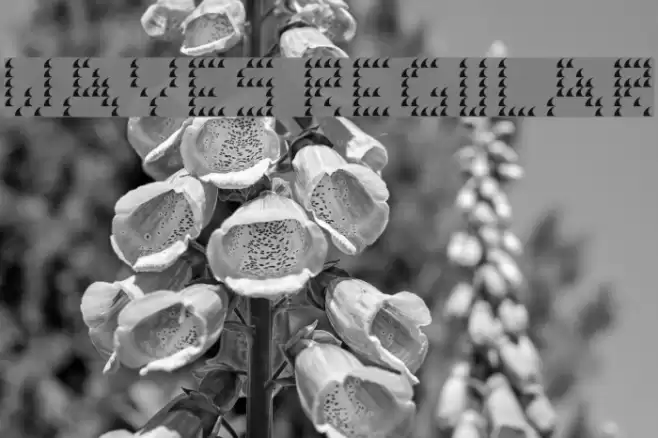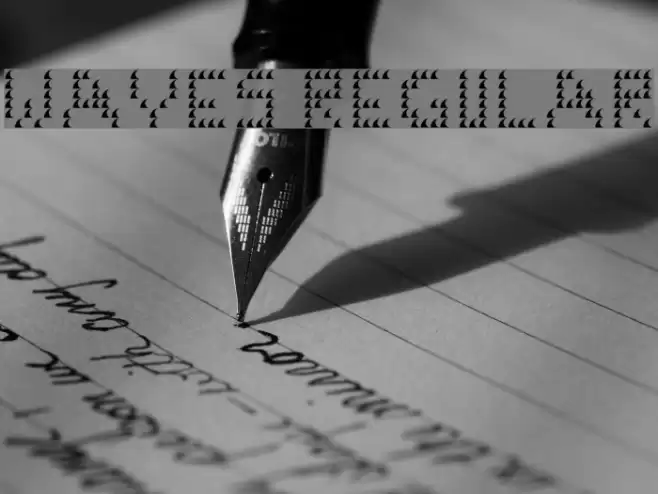
Waves Regular Font
Waves Regular Description
This font features a distinctive design characterized by a series of repeating triangular shapes that create a wave-like pattern within each letter. The geometric style gives it a modern and edgy appearance, making it stand out in any design. The uppercase and lowercase letters maintain a consistent pattern, ensuring readability while adding a unique visual texture. The numerals and special characters follow the same design principles, providing a cohesive look across all glyphs. This font is ideal for projects that require a bold and artistic touch, such as branding, posters, or digital art.
A geometric, wave-patterned font with a modern and edgy style from Uncategorized fonts.
- Proposed Projects: Ideal for branding, posters, digital art, and any project needing a bold, artistic touch.